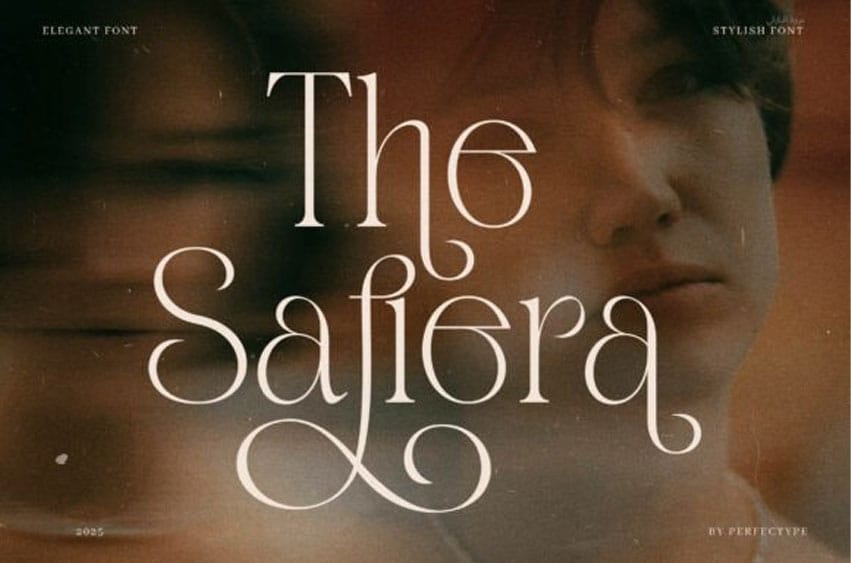
The Safiera Font Serif is a refined blend of classic elegance and modern sophistication, making it an ideal choice for a wide range of creative projects. Whether you’re working on branding, editorial layouts, wedding invitations, or packaging, this versatile serif font brings a clean, polished, and professional aesthetic to your work—while maintaining excellent readability.
Characterized by crisp lines and smooth, graceful curves, Safiera Serif feels fresh yet timeless. It’s equally effective for headlines, body text, and logos, offering design flexibility across print and digital media. With built-in ligatures and alternate letterforms, you can effortlessly add a distinctive, custom touch to your compositions.
Thanks to its balanced combination of traditional and contemporary elements, Safiera Serif is especially well-suited for fashion labels, luxury branding, wedding materials, and upscale business identities. It communicates sophistication and trust, helping your designs stand out with a soft, confident presence.
In addition, this font pairs beautifully with other typefaces, enhancing the visual harmony of your designs. Its timeless charm and clarity make it a reliable choice for designers, marketers, and business professionals alike.